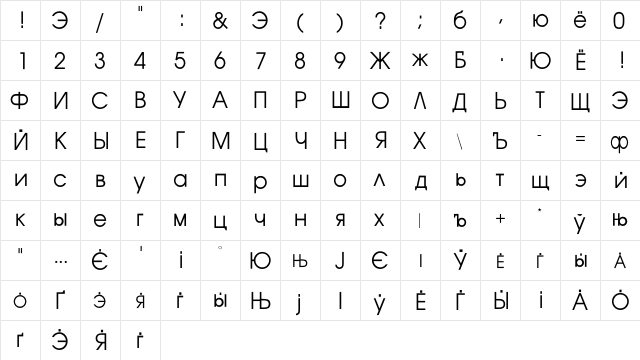
Korenski Regular
Design Context for Korenski Typeface
Korenski takes a measured approach to typography — its balanced proportions and neutral character make it a reliable workhorse for both digital and print work.